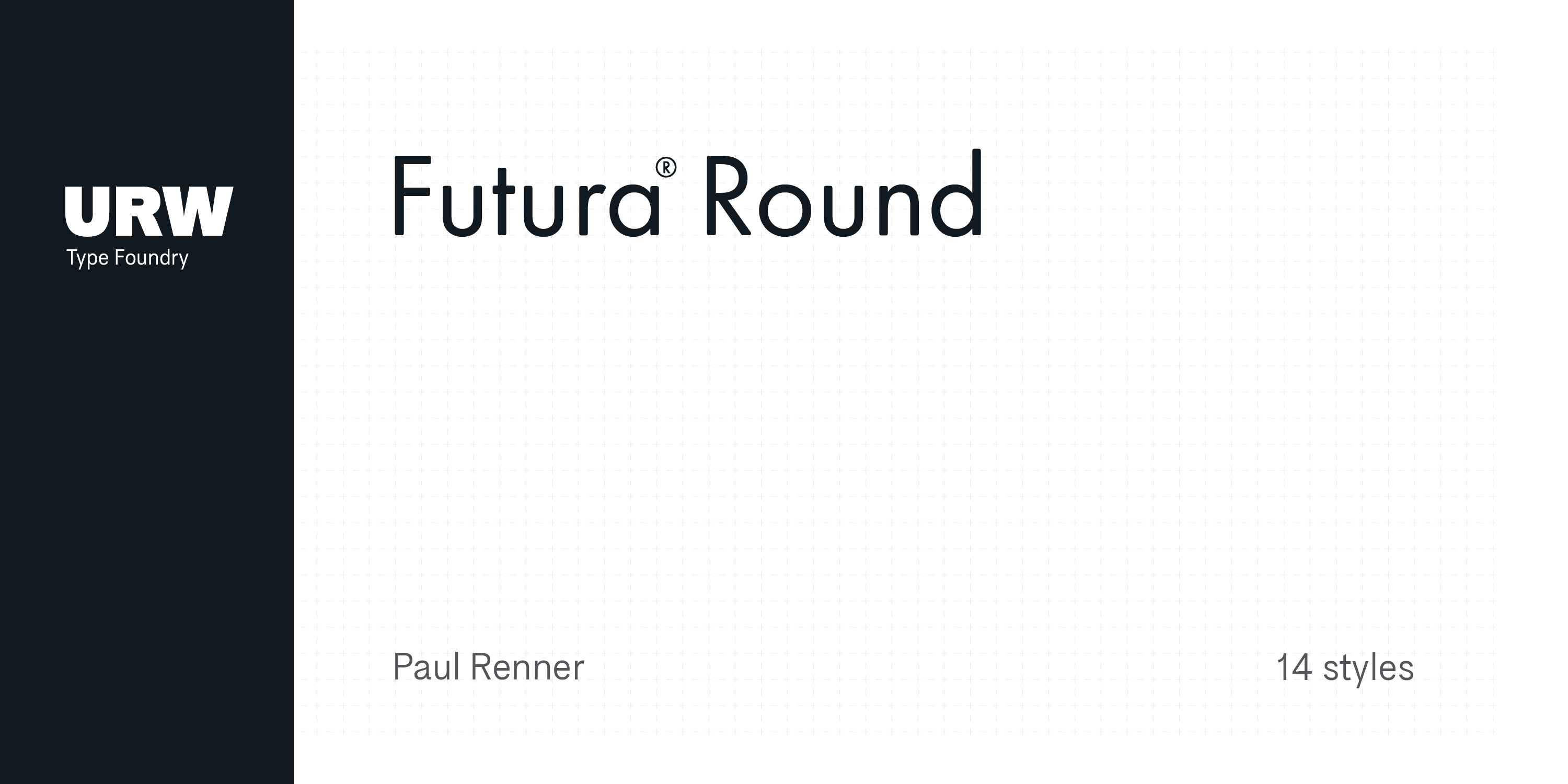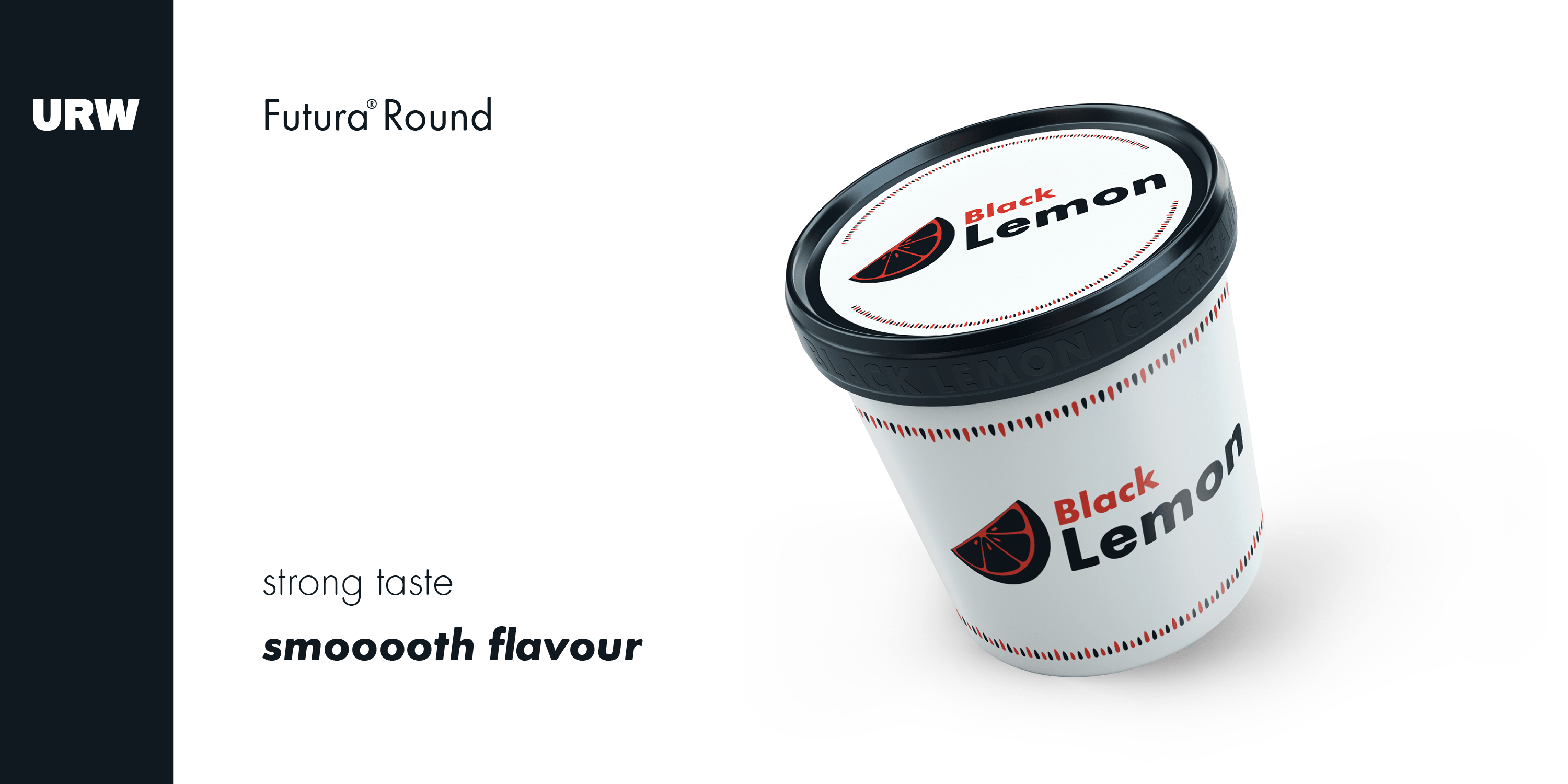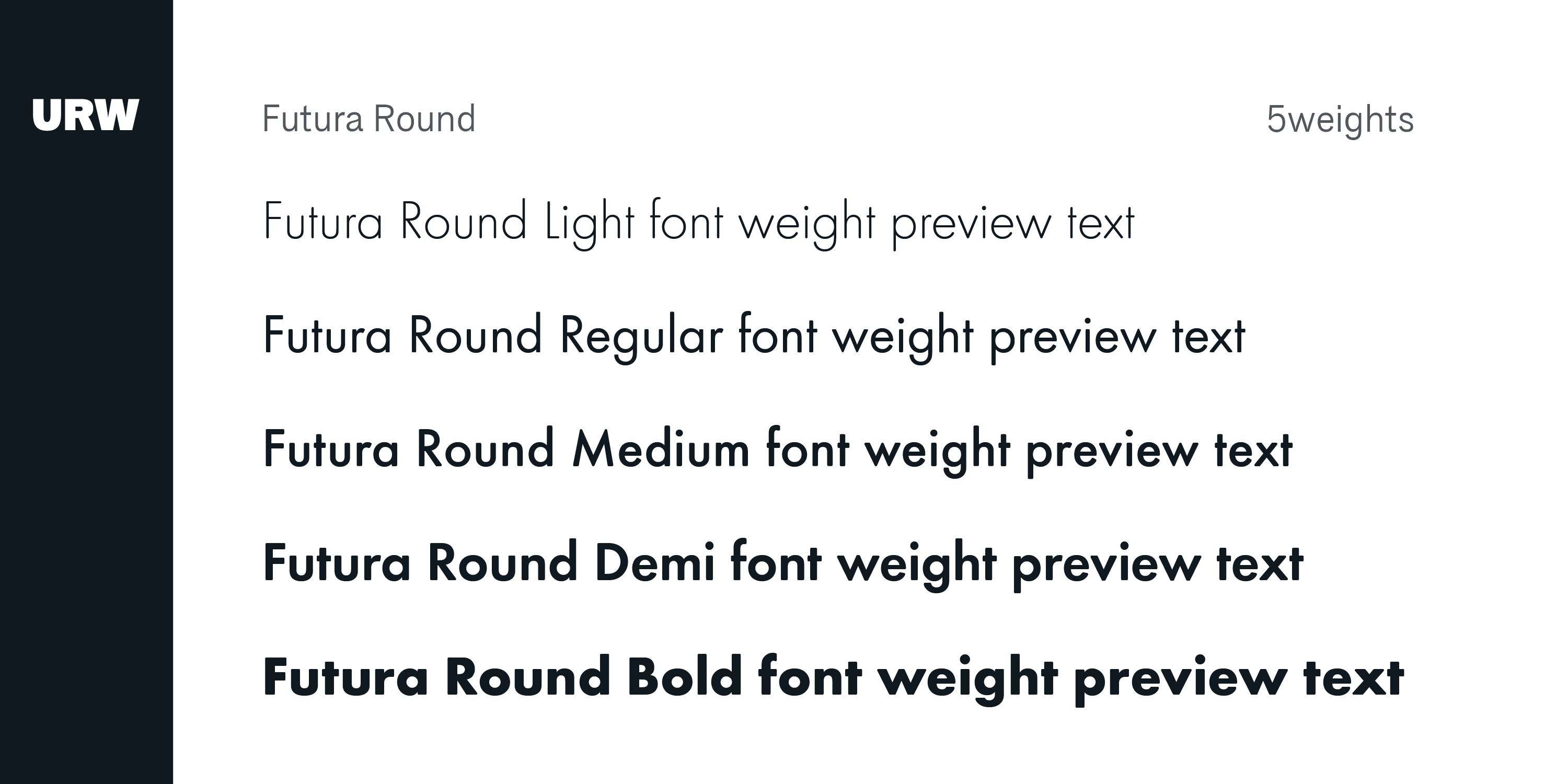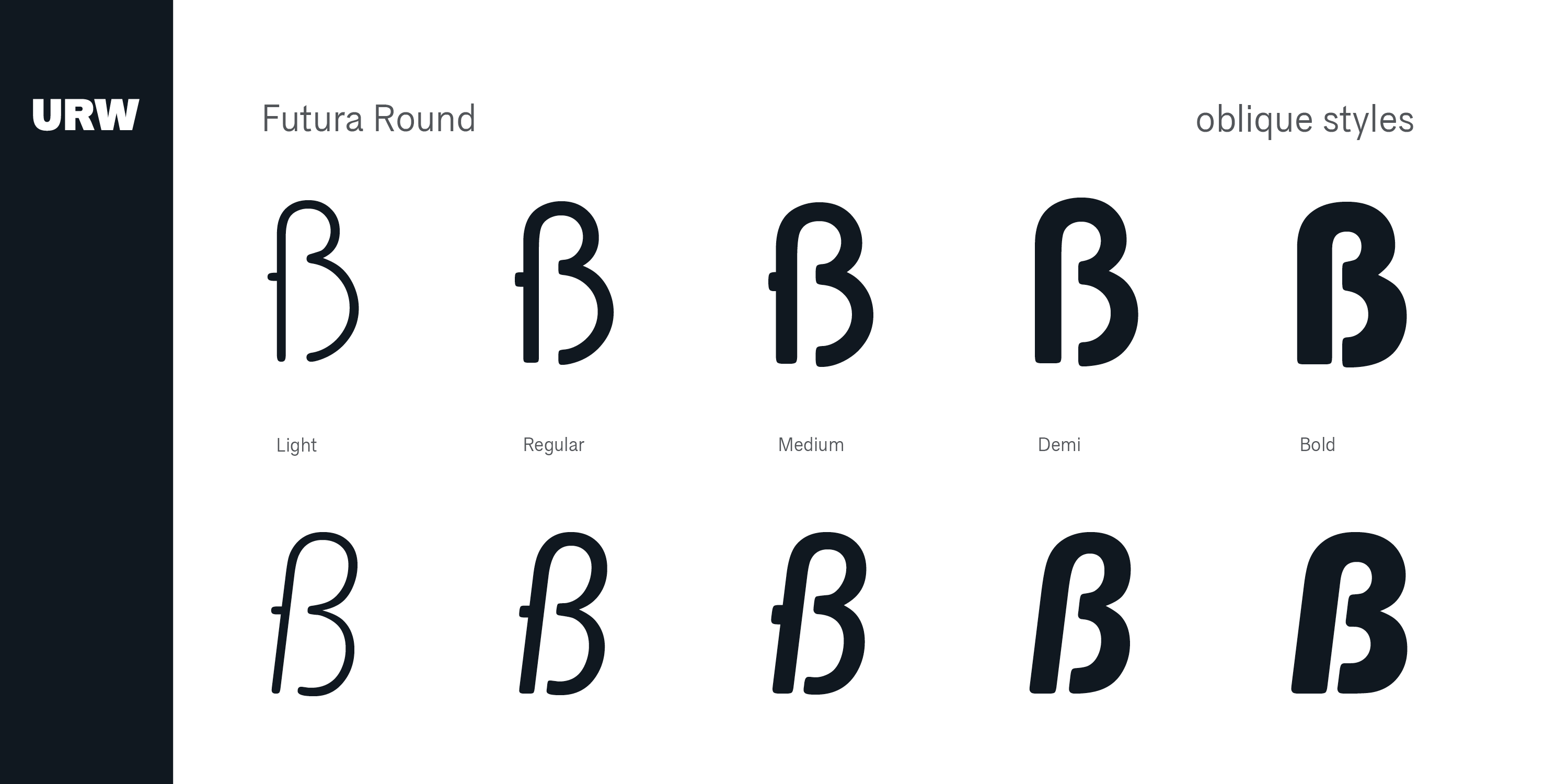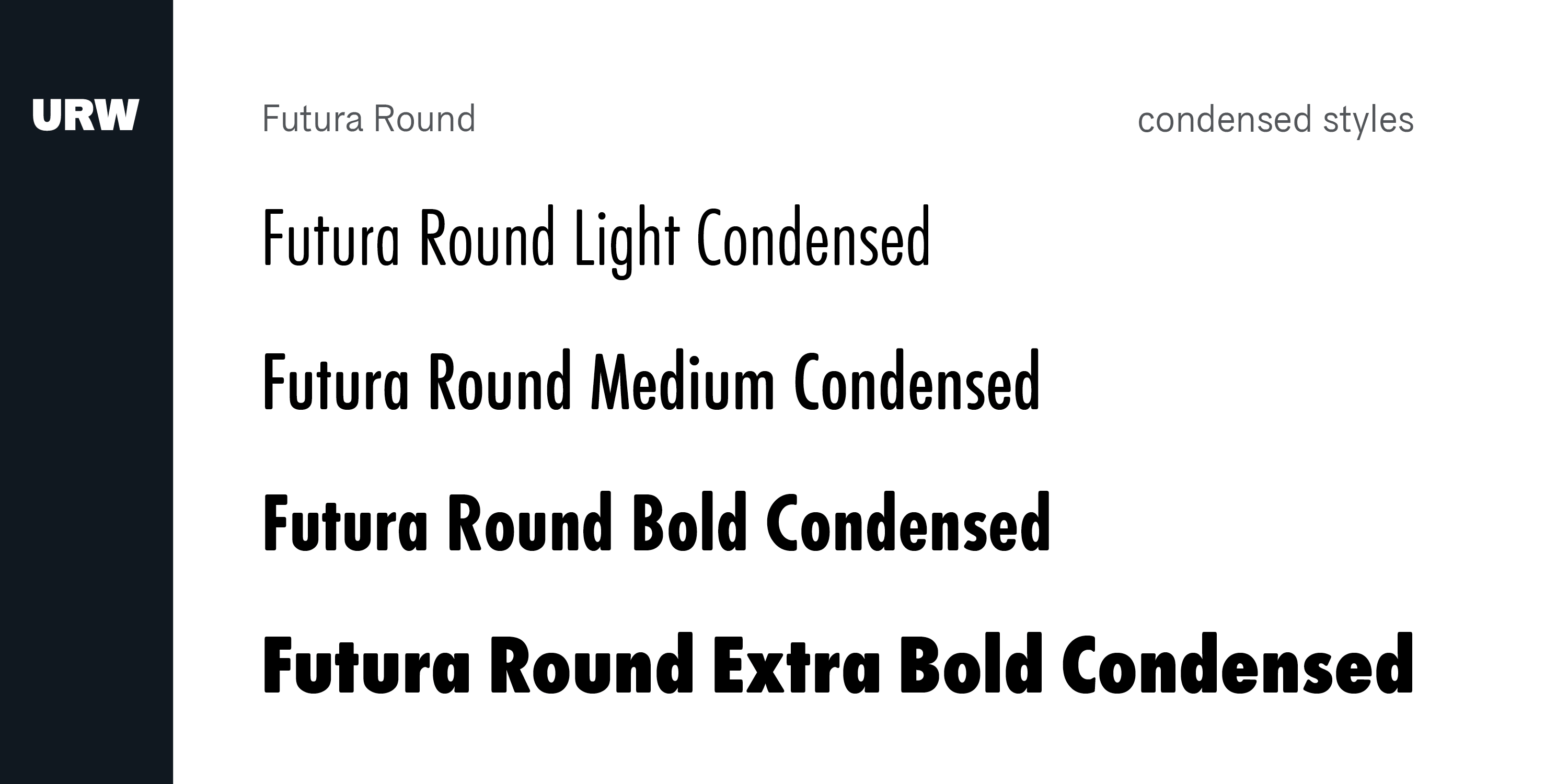
Futura Round
Futura is THE prototype of a geometric or constructed linear sans serif and the font most commonly font of its kind used to date. Futura, very much influenced by the Bauhaus movement in Germany, was designed in 1927 by Paul Renner. Although being around for almost 90 years, Futura seems eternally young and fresh which also explains its continuous popularity with designers and typographers. Futura simply means efficiency and functionality documented by both its many usages as corporate type (e.g. Volkswagen, formerly IKEA, Vuitton, Shell, formerly HP, SMA and many more) as well as in various famous film projects (e.g. Kubrick, Anderson etc.). Futura’s iconic status was probably established when it walked on the moon with the Apollo 11 crew in 1969. It was used for the lettering of the plaque that was left up there.
Now, URW has expanded its range of Futura styles by Futura Round with 14 additional styles.